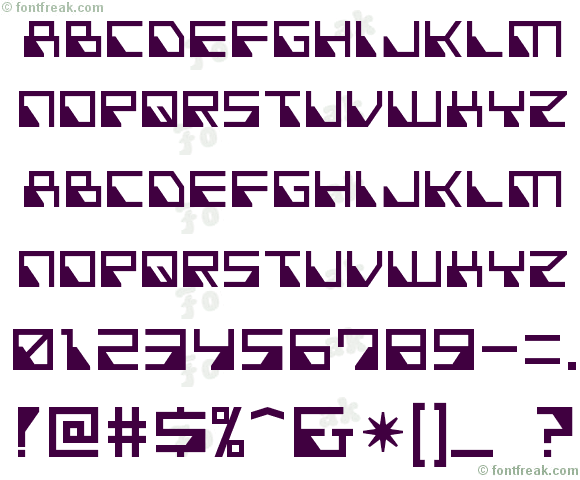
The Nonfiction font by Pizzadude is a striking display typeface that perfectly balances modernity and readability. This sans-serif font showcases a bold, geometric design with clean lines and a uniform stroke weight, making it an excellent choice for a variety of applications. Its lack of decorative elements creates a minimalist aesthetic, ensuring that the text remains the focal point without unnecessary embellishments. The character spacing is well-considered, providing clarity and legibility, even at smaller sizes.
This versatile font is ideal for a range of creative projects. Its contemporary look makes it suitable for promotional materials, such as flyers and posters, where grabbing attention is essential. Additionally, the Nonfiction font fits seamlessly into branding efforts, providing a strong visual identity for small business owners. It is also well-suited for web design, particularly in headings and call-to-action buttons, where clarity and impact are paramount. Content creators will find this font helpful for social media graphics, lending a professional touch to digital content.
Targeting graphic designers and small business owners, the Nonfiction font offers an accessible option for those looking to elevate their visual communication. Its freeware license ensures that anyone can use it without financial constraints, making it an attractive choice for both personal and professional projects.
What sets the Nonfiction font apart is its clean, modern aesthetic combined with its versatility. This font stands out in a crowded marketplace due to its straightforward design, allowing it to adapt to various contexts while maintaining a distinctive presence. For those seeking a Nonfiction font free download, this typeface represents an excellent opportunity to enhance any project with a touch of contemporary sophistication.